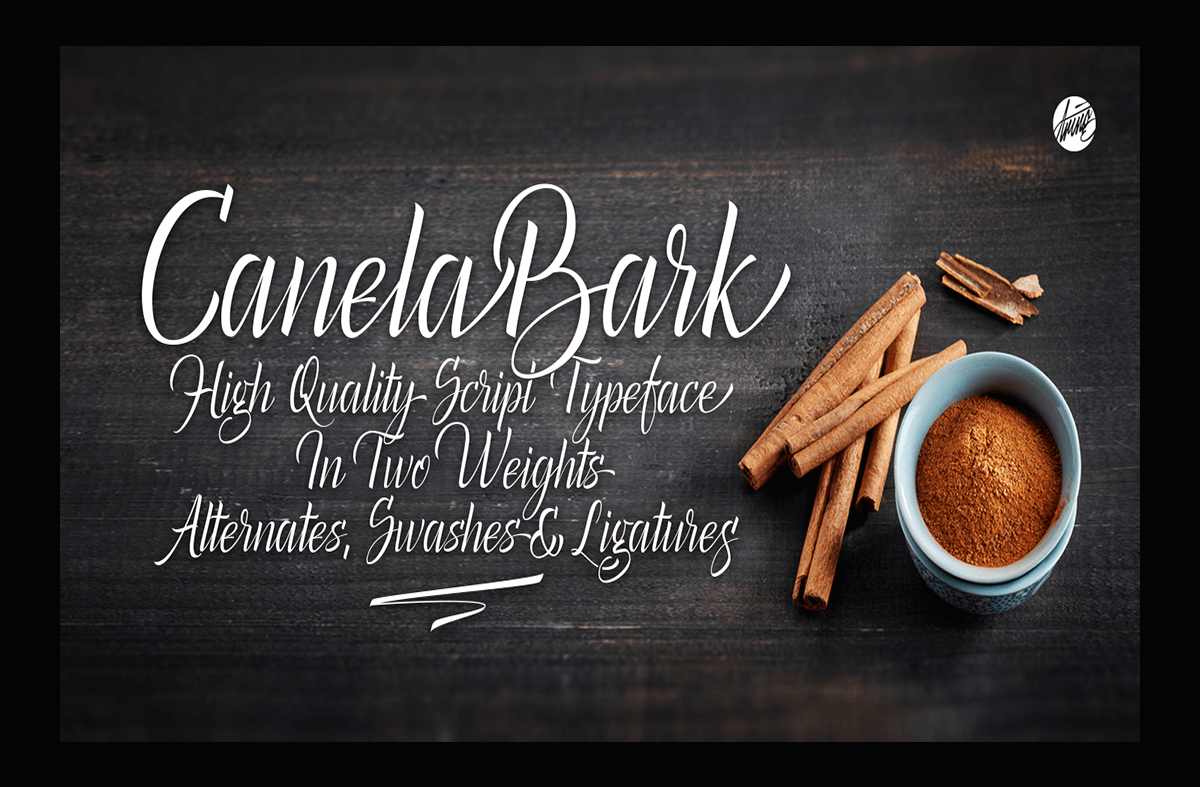
Canela Bark Font
Canela Bark Font High quality script font with multilingual support and a large number of special characters. Designed by Luis Miguel and Måns Grebäck, this hand-crafted typeface works great in logotypes and for titles and slogans.